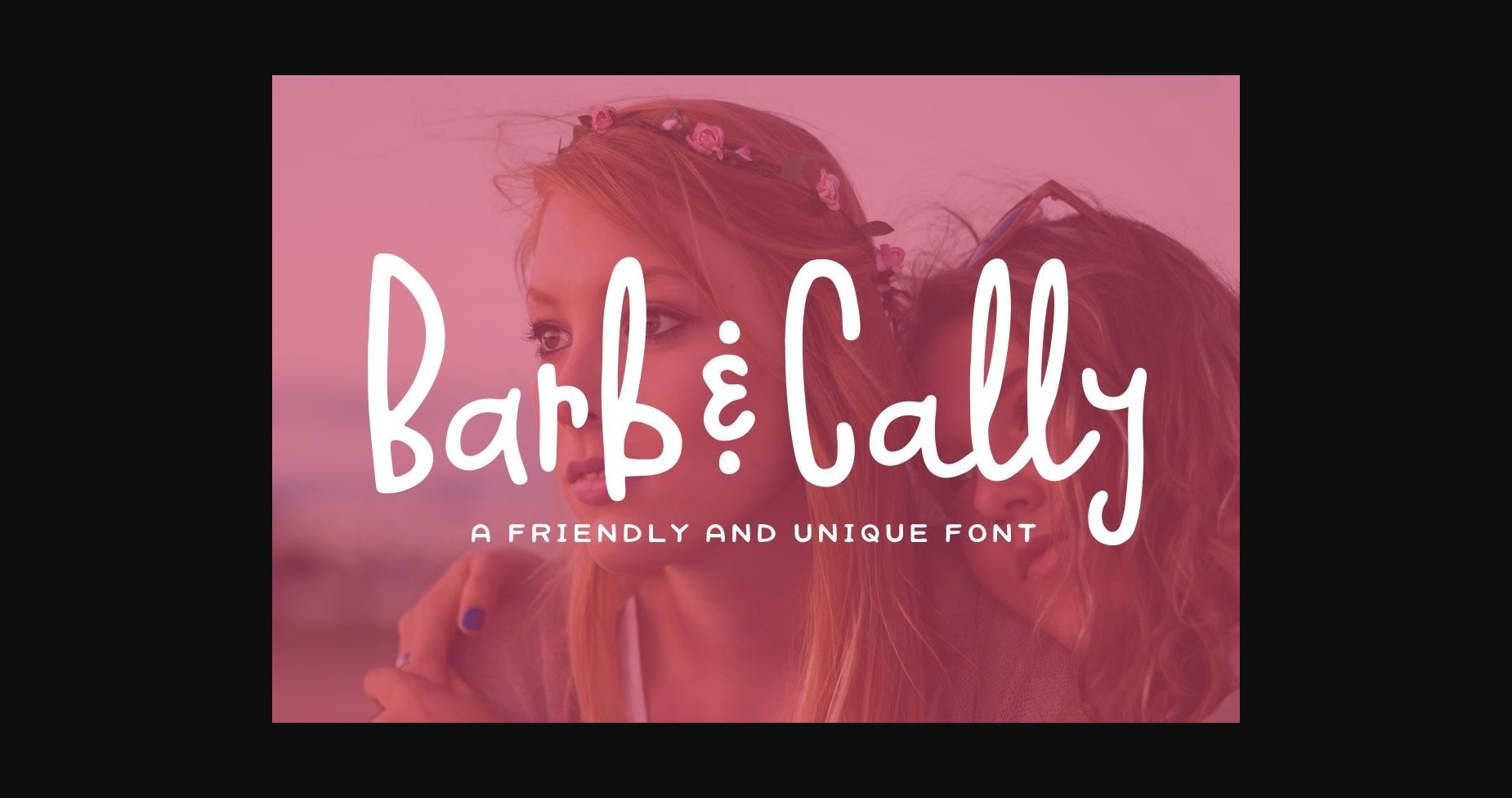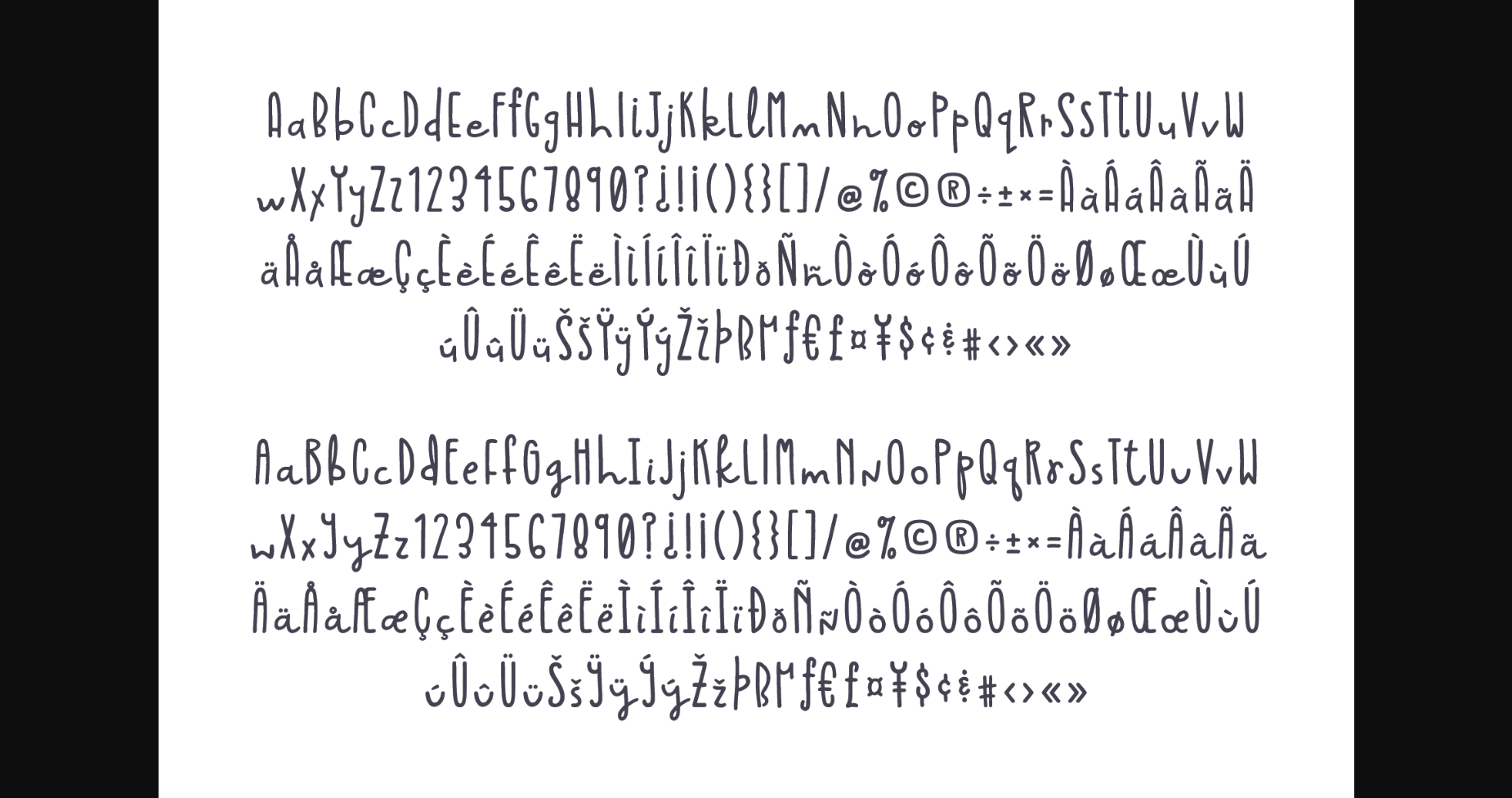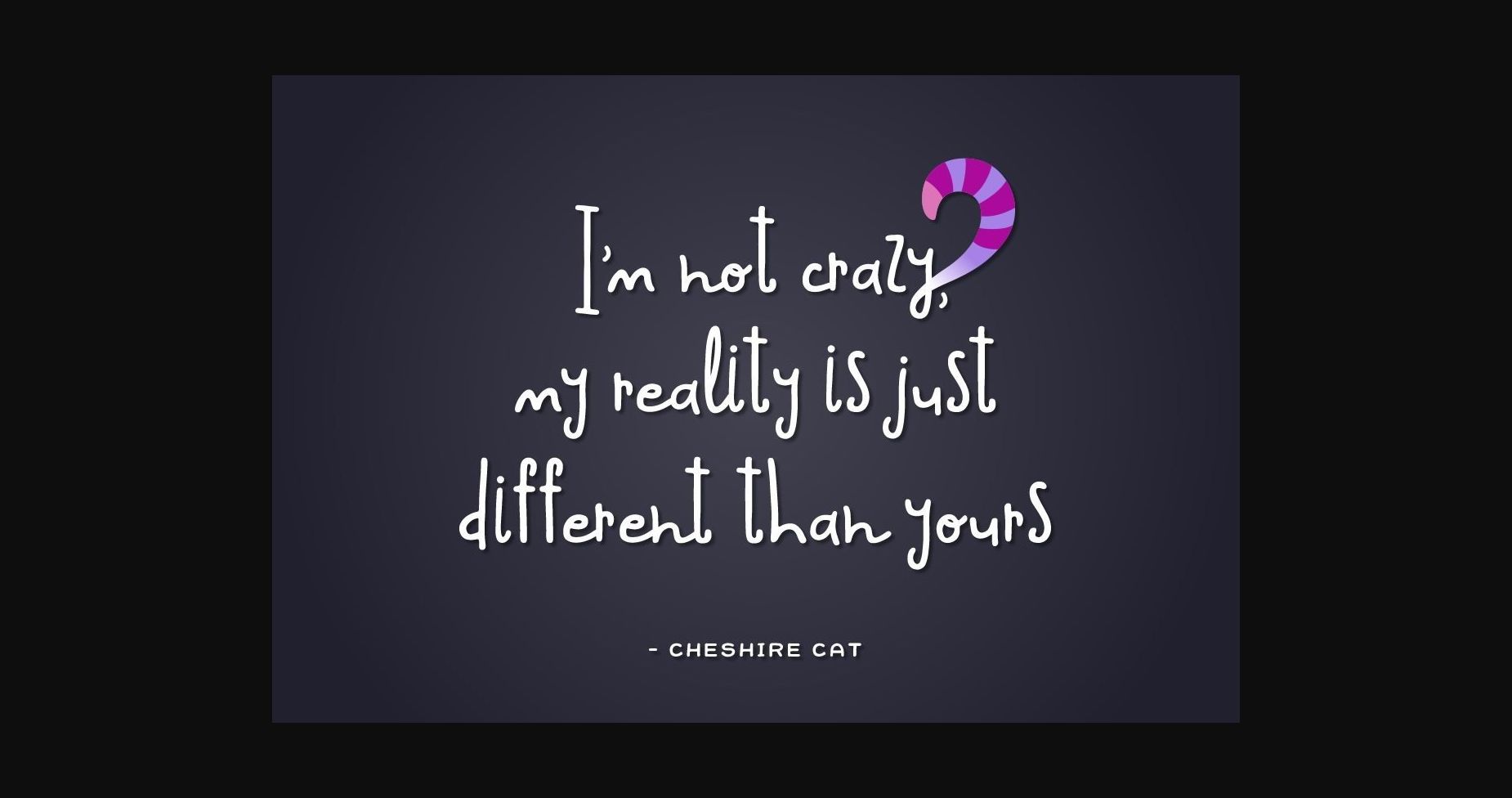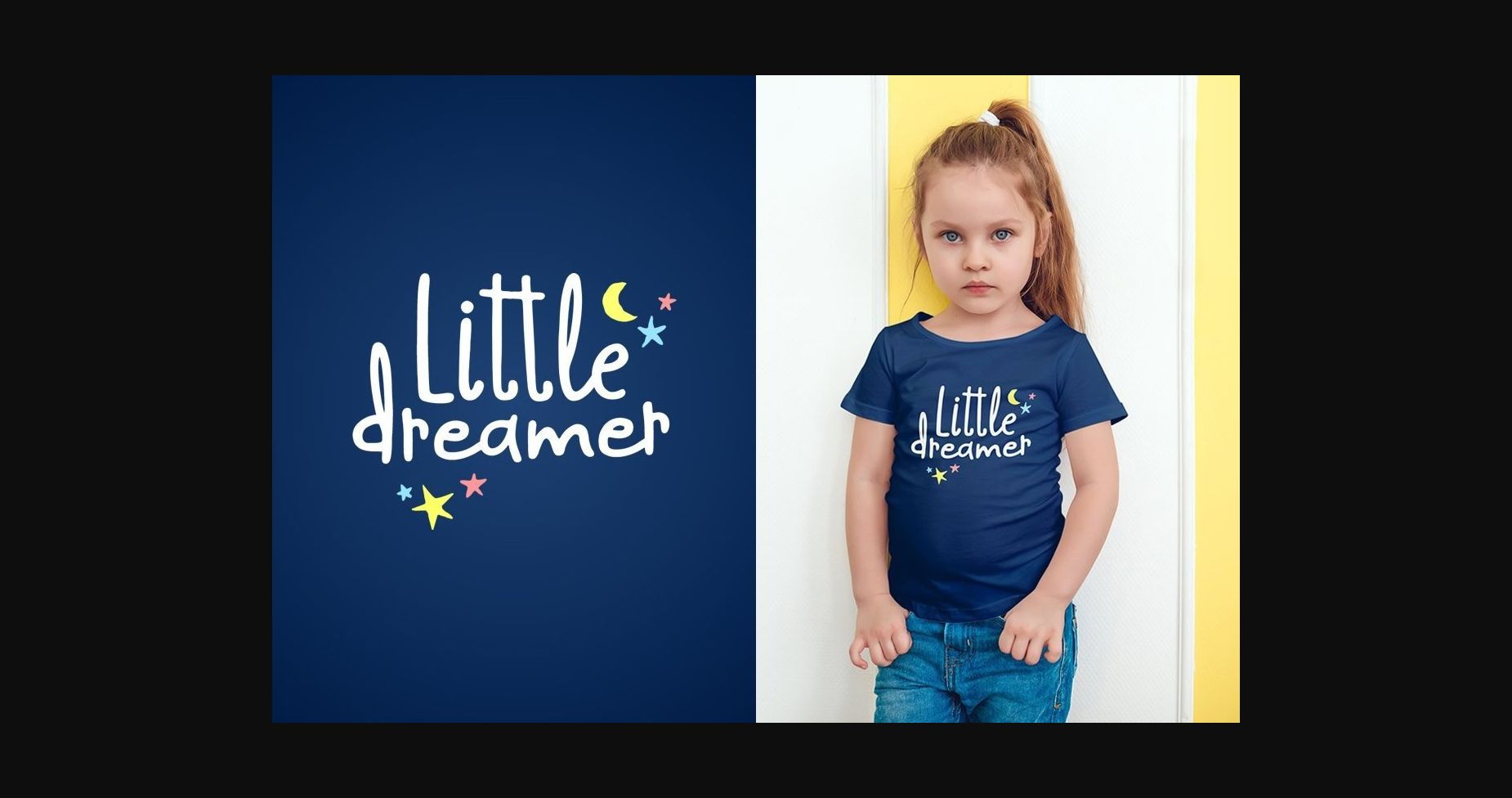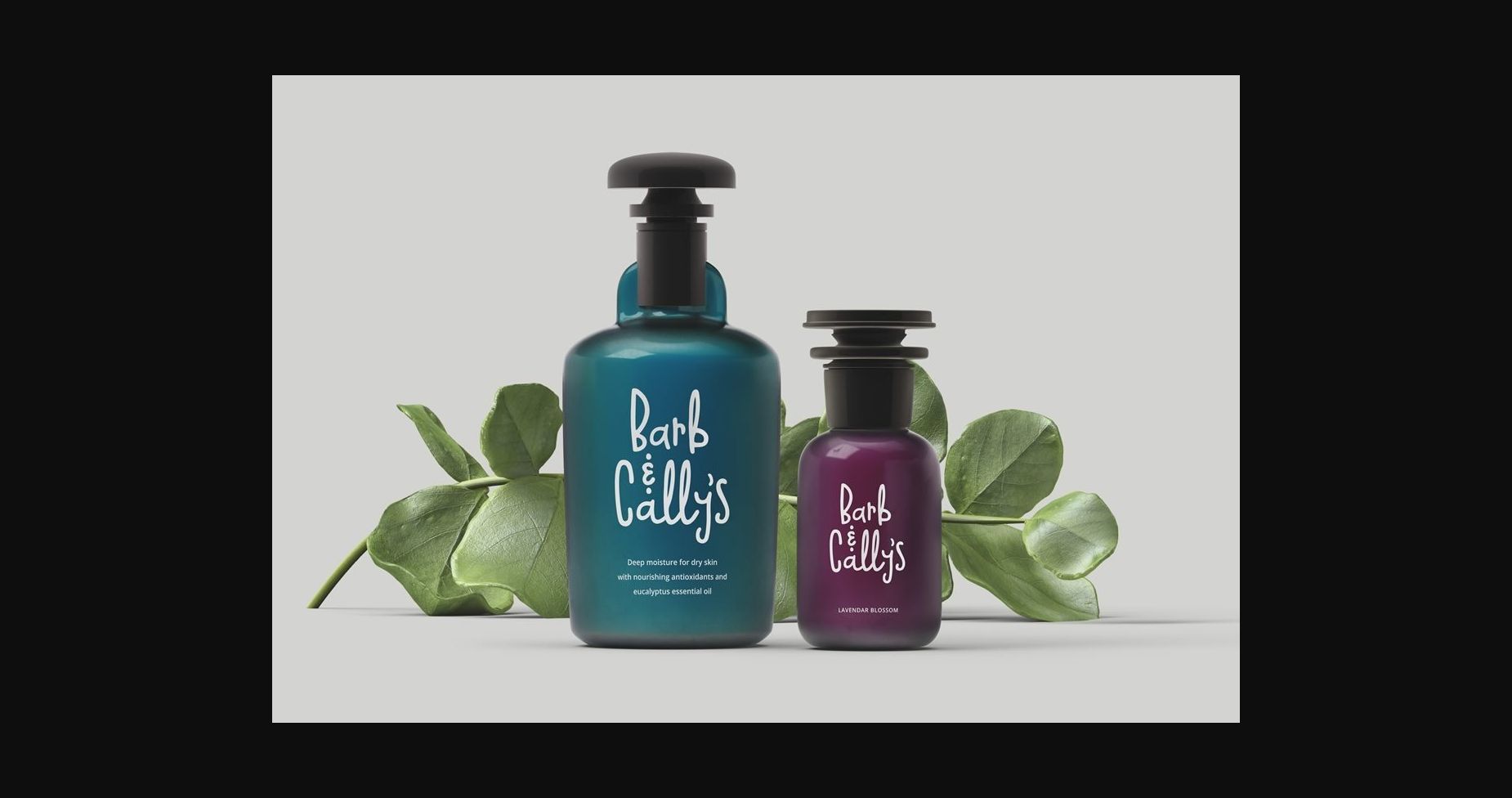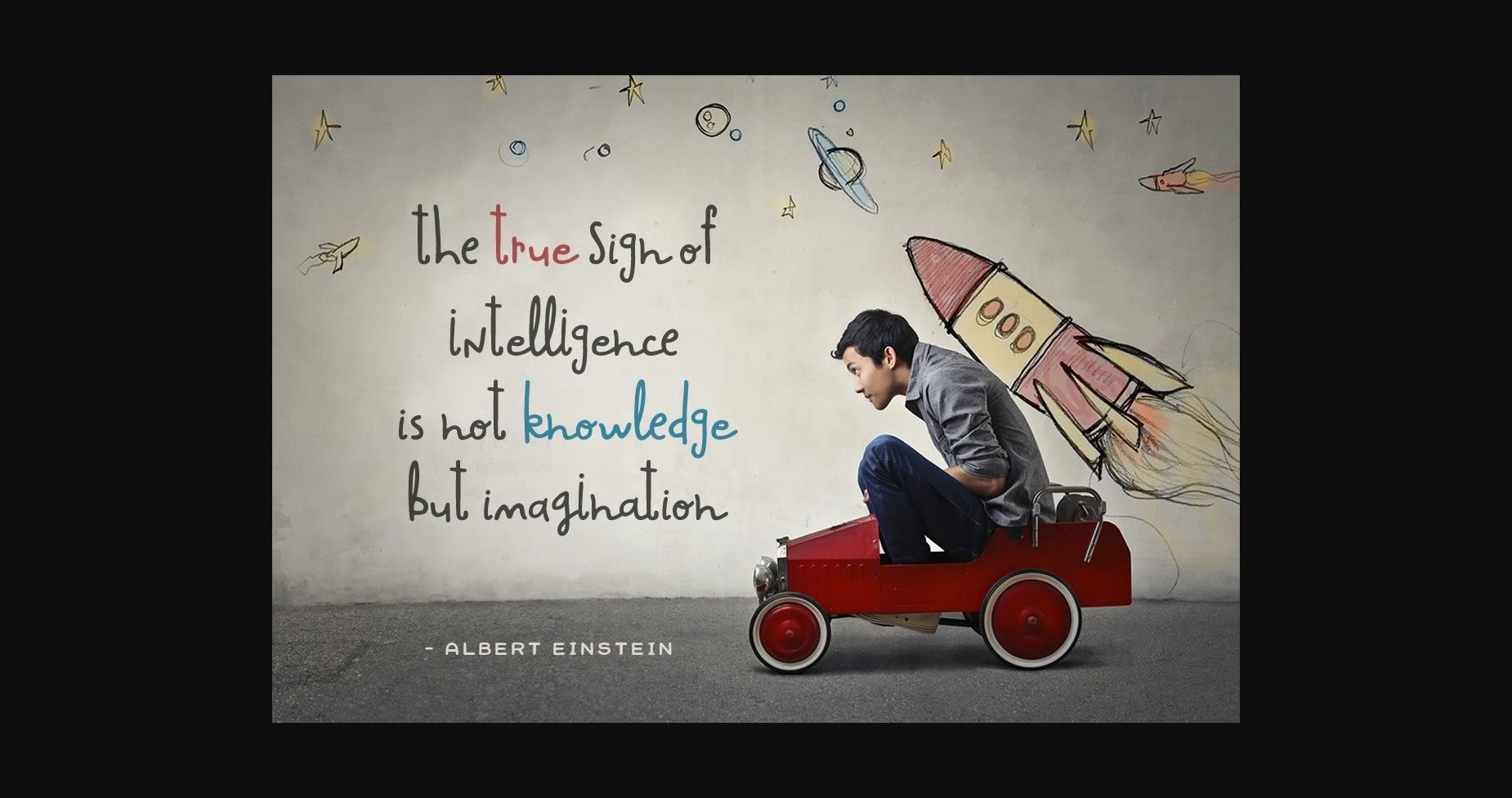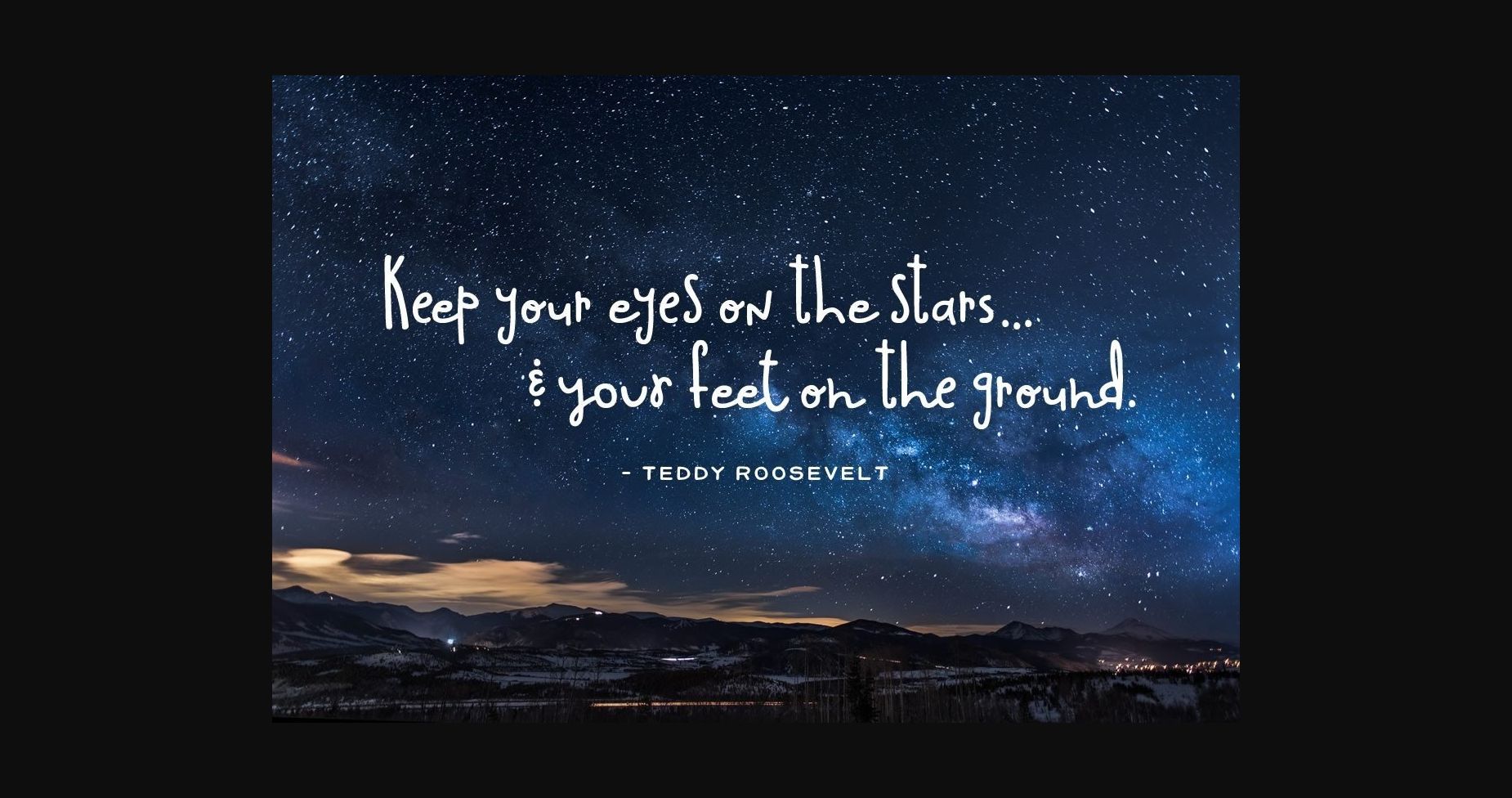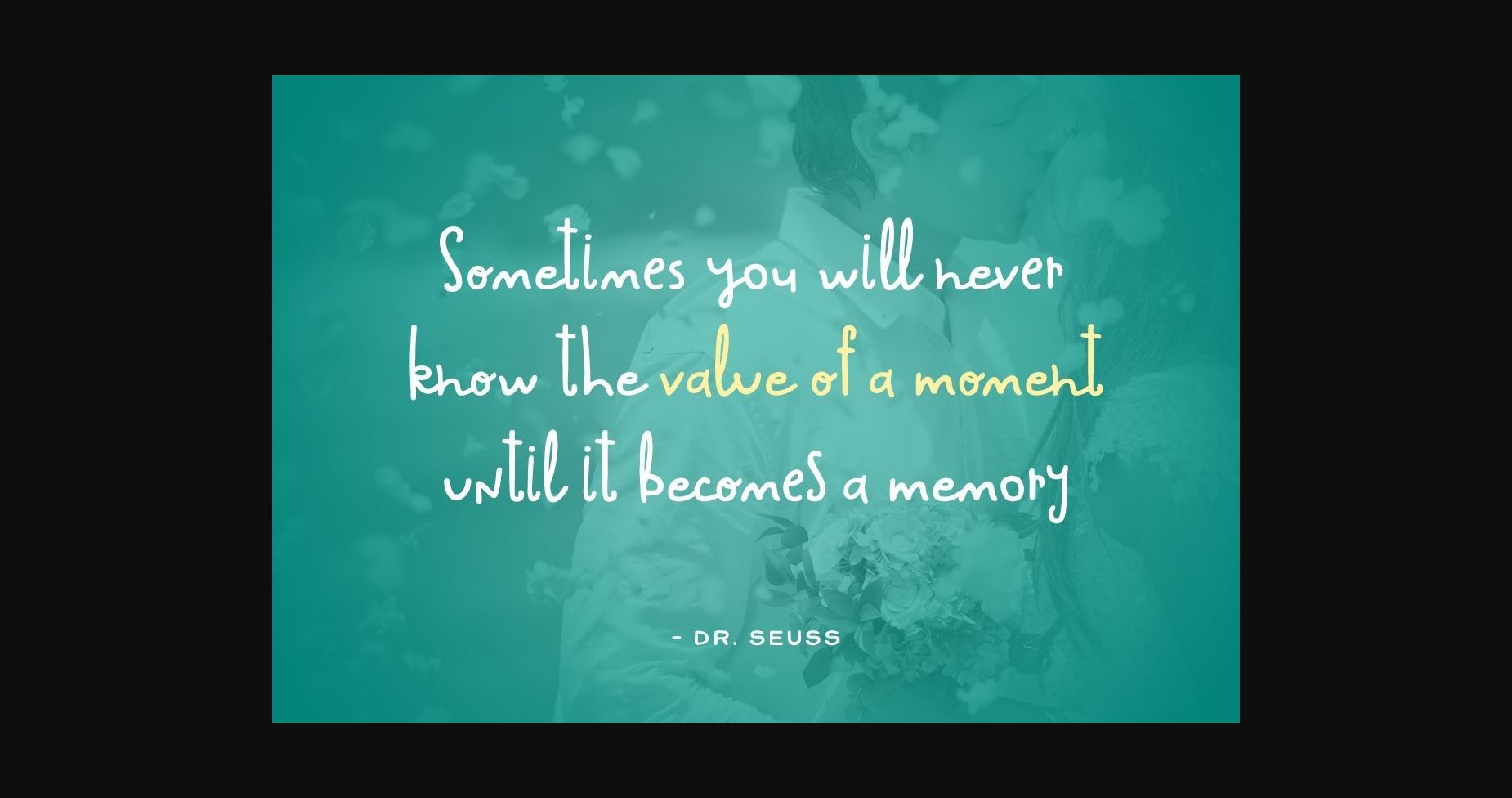
Barb and Cally Font
About Barb and Cally Font
Barb and Cally are like two peas in a pod. Always working together, helping each other out. This friendly and unique font will make any design stand out. Simple and casual, Barb & Cally can bring a fun and youthful style to your next project.